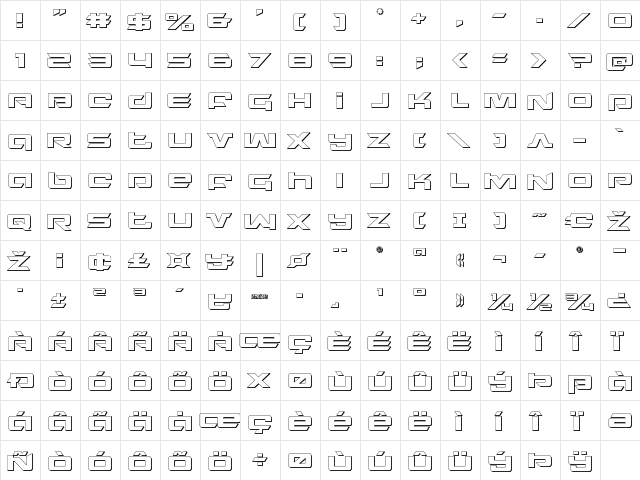
Northstar 3D Regular
Design Context for Northstar 3D Typeface
Northstar 3D is a composed and adaptable typeface that performs quietly and consistently across a wide range of design contexts.